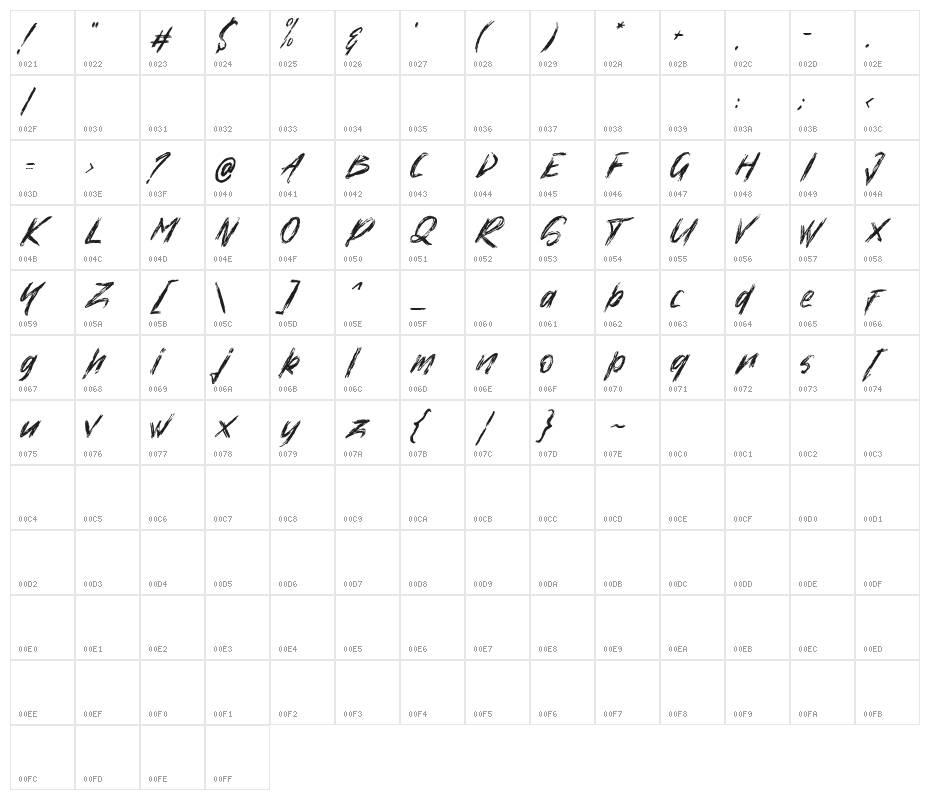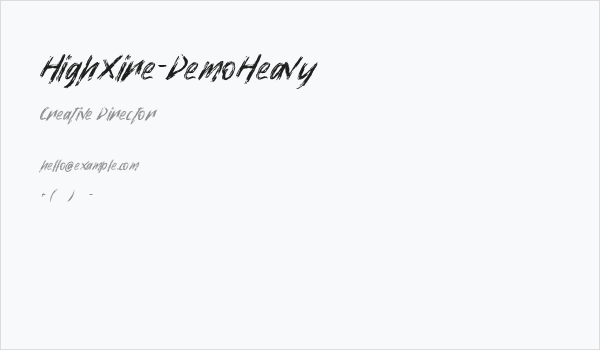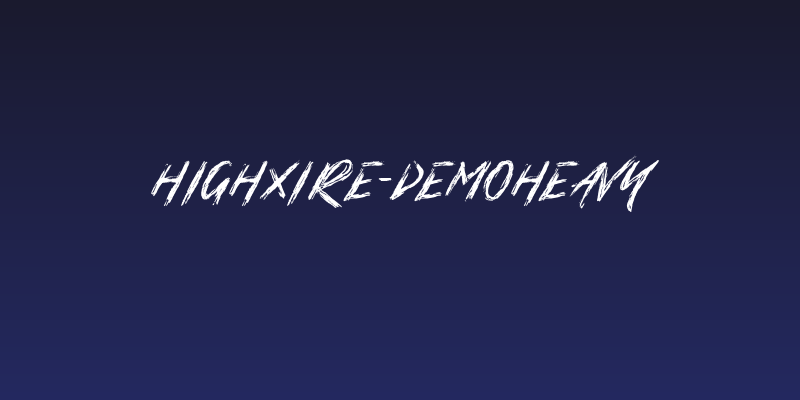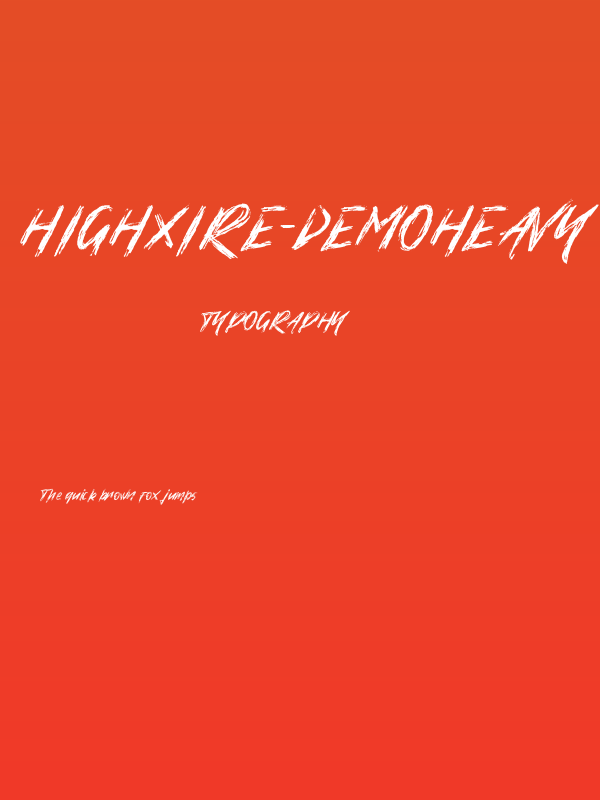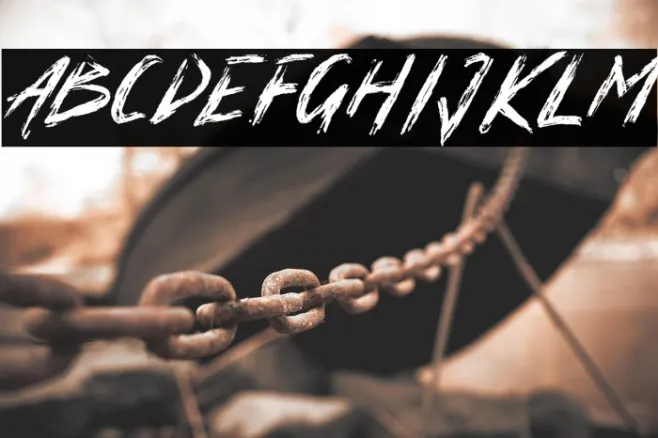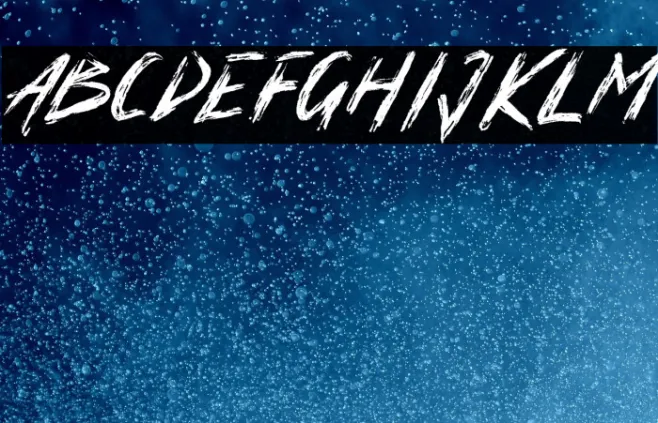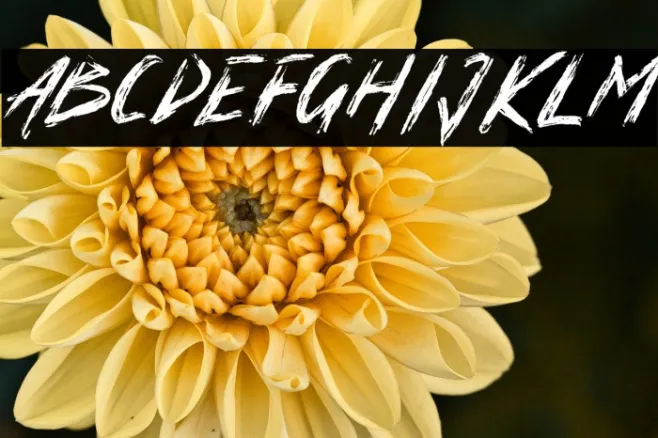
HighXire-DemoHeavy Font
HighXire-DemoHeavy Description
This font exhibits a bold and expressive style with a brush-like texture that gives it a dynamic and energetic appearance. The strokes are irregular and jagged, creating a sense of movement and spontaneity. The uppercase and lowercase letters maintain a consistent style, with some letters featuring unique flourishes and angles. The numbers and special characters follow the same aesthetic, ensuring a cohesive look across all elements. This font's raw and edgy design makes it stand out, ideal for projects that require a strong visual impact.
| Overall Style | Modern, Edgy |
| Proposed Projects | Perfect for music album covers, streetwear branding, skateboarding graphics, and event posters. |